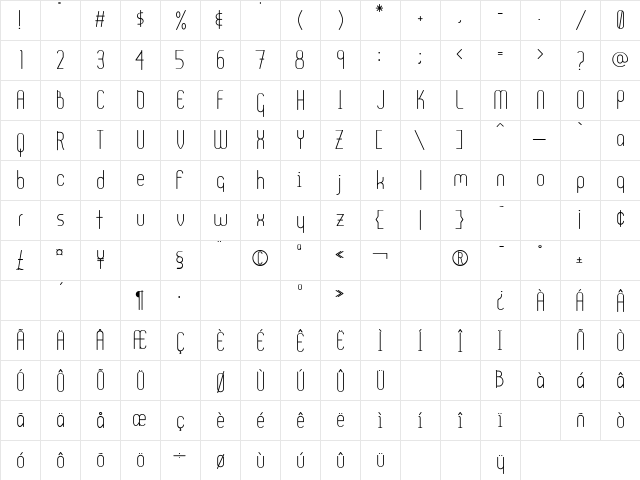
Ultura Medium
Design Context for Ultura Typeface
Ultura offers clean, dependable letterforms without strong stylistic allegiance, making it a practical choice for designers who need flexibility.